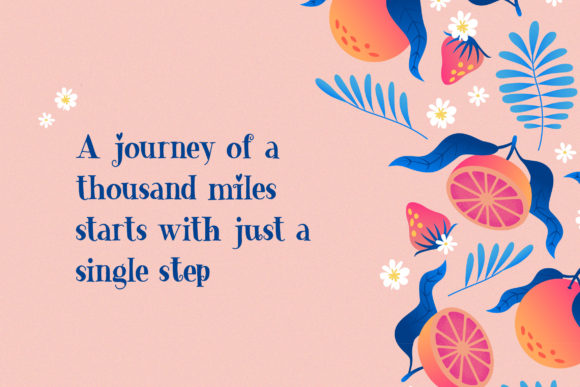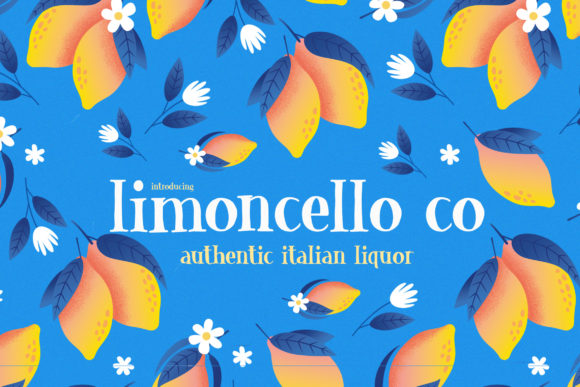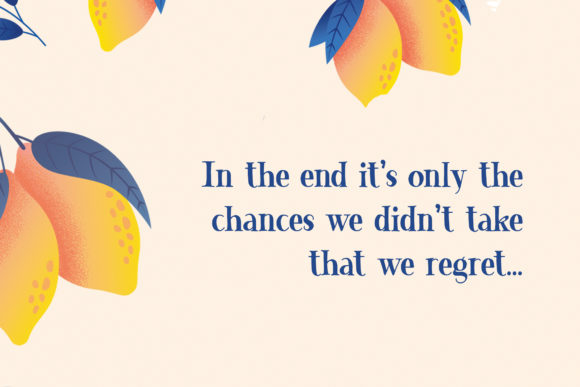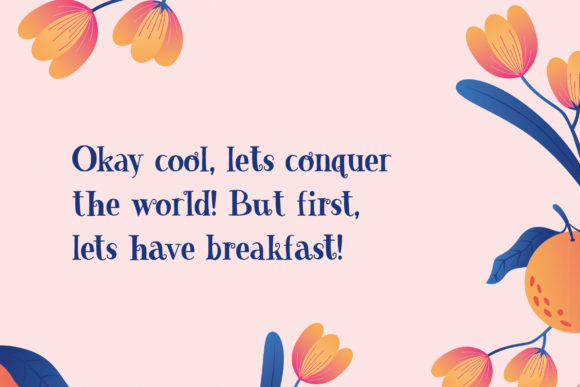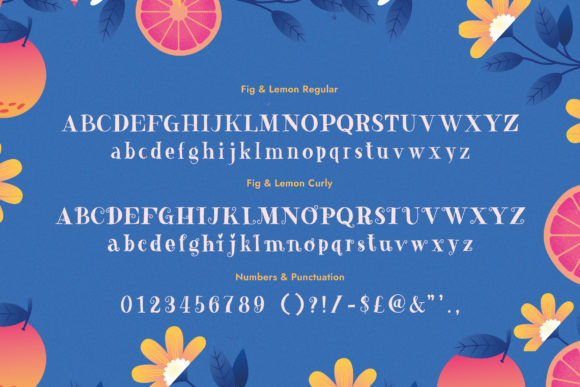
Introducing the Fig & Lemon Duo Font: Elevate Your Designs with Elegance
In the world of typography, finding the perfect font that adds a touch of elegance and sophistication to your projects can be a daunting task. However, look no further than the Fig & Lemon Duo Font, a delicate and authentic serif font designed to enhance the beauty of your creations. With its balanced and varied strokes, this font is not too thin and not too thick, making it the ideal choice for designers and crafters seeking a refined and versatile typeface.
The Story Behind Fig & Lemon Duo Font
The Fig & Lemon Duo Font was crafted with precision and passion to provide a unique and captivating visual experience. Its design is centered around achieving a perfect balance between style and readability, making it suitable for a wide range of applications, from elegant branding and packaging to beautiful stationery and digital content.
Key Features of Fig & Lemon Duo Font
- Delicate and Authentic Serif Design: The Fig & Lemon Duo Font boasts a classic serif design that exudes elegance and sophistication. Its delicate features add a touch of refinement to any project.
- Balanced and Varied Strokes: The font’s balanced and varied strokes ensure that it is neither too thin nor too thick, providing a harmonious visual experience that is easy on the eyes.
- Versatility: Whether you’re working on a branding project, crafting beautiful stationery, or creating engaging digital content, the Fig & Lemon Duo Font adapts seamlessly to different contexts and mediums.
- Readability: Despite its elegant and delicate design, the Fig & Lemon Duo Font maintains high readability, making it perfect for body text and longer content.
Why Choose Fig & Lemon Duo Font?
Choosing the right font for your project can significantly impact its overall success and aesthetic appeal. Here are some compelling reasons to select the Fig & Lemon Duo Font for your next design or crafting endeavor:
- Unique Aesthetic: The Fig & Lemon Duo Font offers a unique aesthetic that sets it apart from more common typefaces. Its distinctive serif design and balanced strokes provide a fresh and captivating look.
- Time-Saving: With the Fig & Lemon Duo Font, you can achieve professional-looking results without spending hours searching for the perfect typeface. Its versatility and elegance save you time and effort.
- Professionalism: Using a high-quality font like Fig & Lemon Duo instantly elevates the professionalism of your work. It’s perfect for designers and crafters who want to deliver high-end results to their clients or audience.
Using Fig & Lemon Duo Font in Your Projects
Incorporating the Fig & Lemon Duo Font into your projects is straightforward and beneficial. Here are some ideas on how to make the most of this beautiful font:
- Branding and Logo Design: Use the Fig & Lemon Duo Font to create elegant and memorable logos that stand out.
- Stationery and Invitations: Add a touch of sophistication to your stationery, invitations, and greeting cards with this beautiful serif font.
- Digital Content: Enhance your website, blog, or social media content with the Fig & Lemon Duo Font, making your digital presence more refined and engaging.
- Packaging Design: Elevate your product packaging with a font that communicates luxury, quality, and attention to detail.
The Fig & Lemon Duo Font is a versatile and elegant serif font that can transform your designs and crafts. Its delicate and authentic design, balanced and varied strokes, and high readability make it an excellent choice for a wide range of projects. Whether you’re a designer, crafter, or simply someone who appreciates beautiful typography, the Fig & Lemon Duo Font is sure to enhance the beauty and impact of your work.